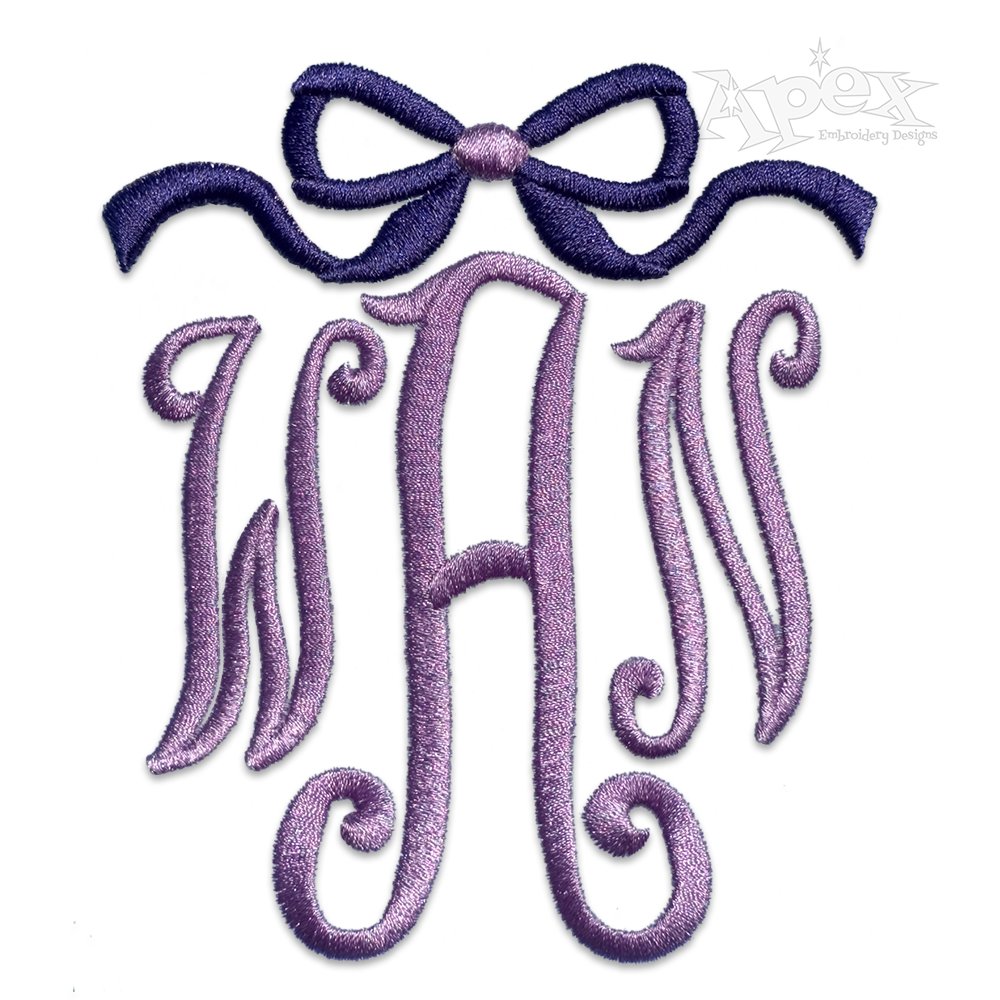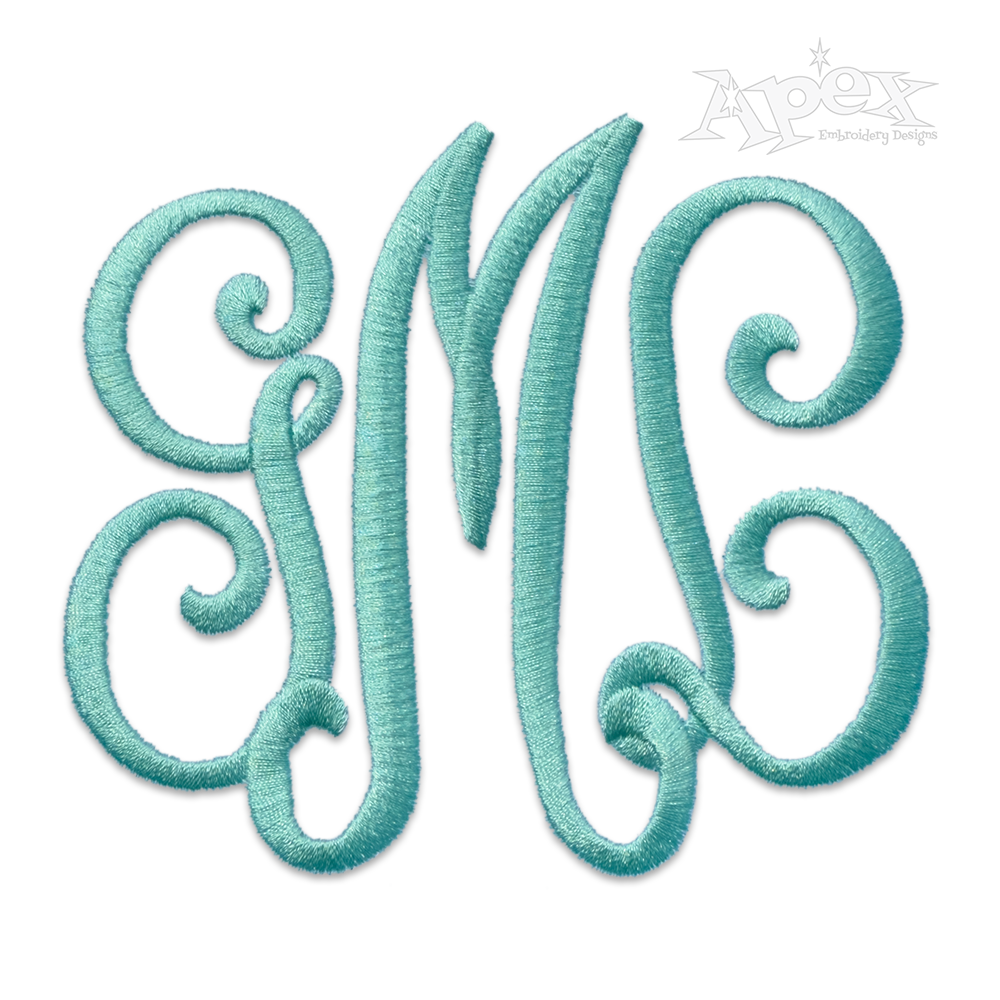
Pillow Embroidery Font
Create tall pillow linen style personalized gifts and home décor with bespoke Pillow Talk. Southern Style Monogram Embroidery Font. Classic with bespoke stylish 2-color embroidery monogram set is perfect for customizing hats, linens, towels, baby gifts, tote bags, and more.
This Pillow embroidery font collection includes complete size sets with uppercase monogram letters designed for creating stunning 3-letter monograms. Each font comes professionally digitized for smooth stitching and excellent embroidery results. Apex has digitized machine embroidery fonts for over 25 years.
Left and right are the same letters each set you receive 2 sizes not 3